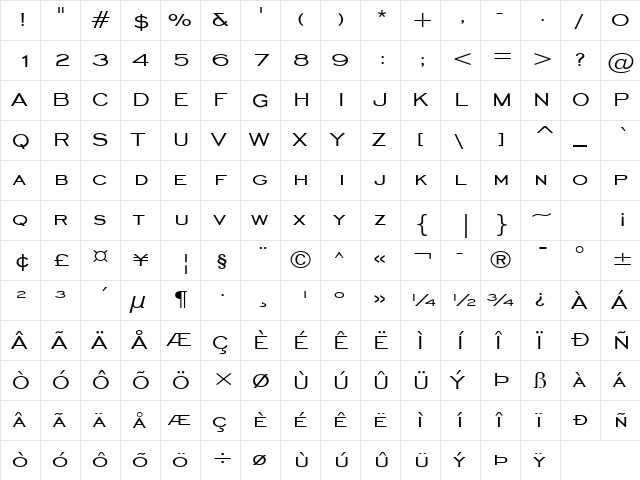
Monday '88 Normal
Design Context for Monday '88 Typeface
Monday '88 offers clean, dependable letterforms without strong stylistic allegiance, making it a practical choice for designers who need flexibility.